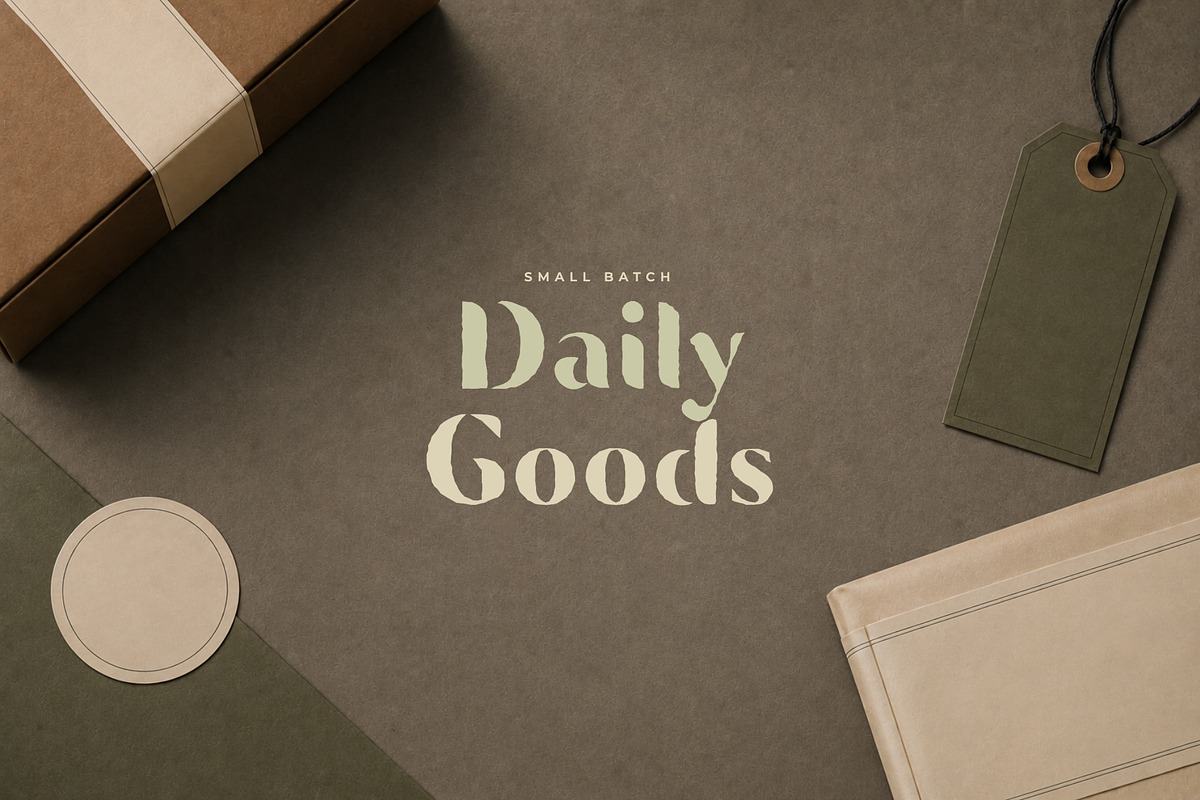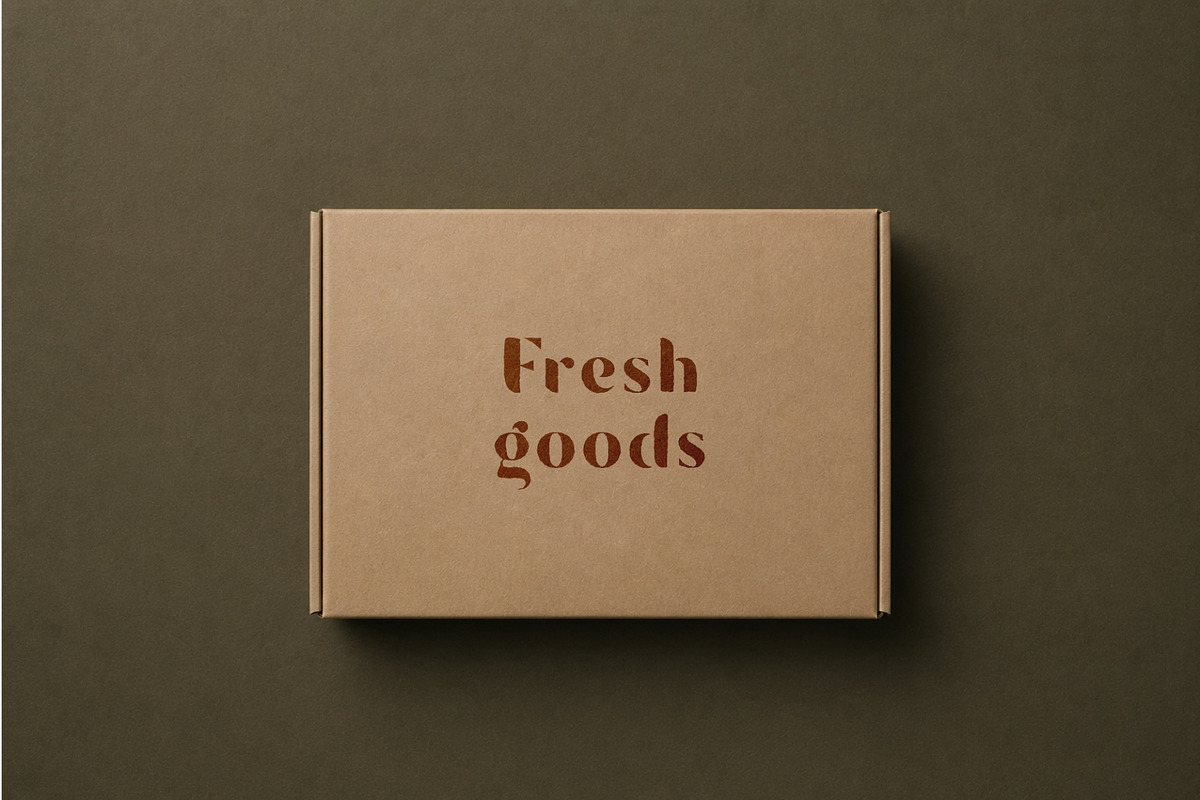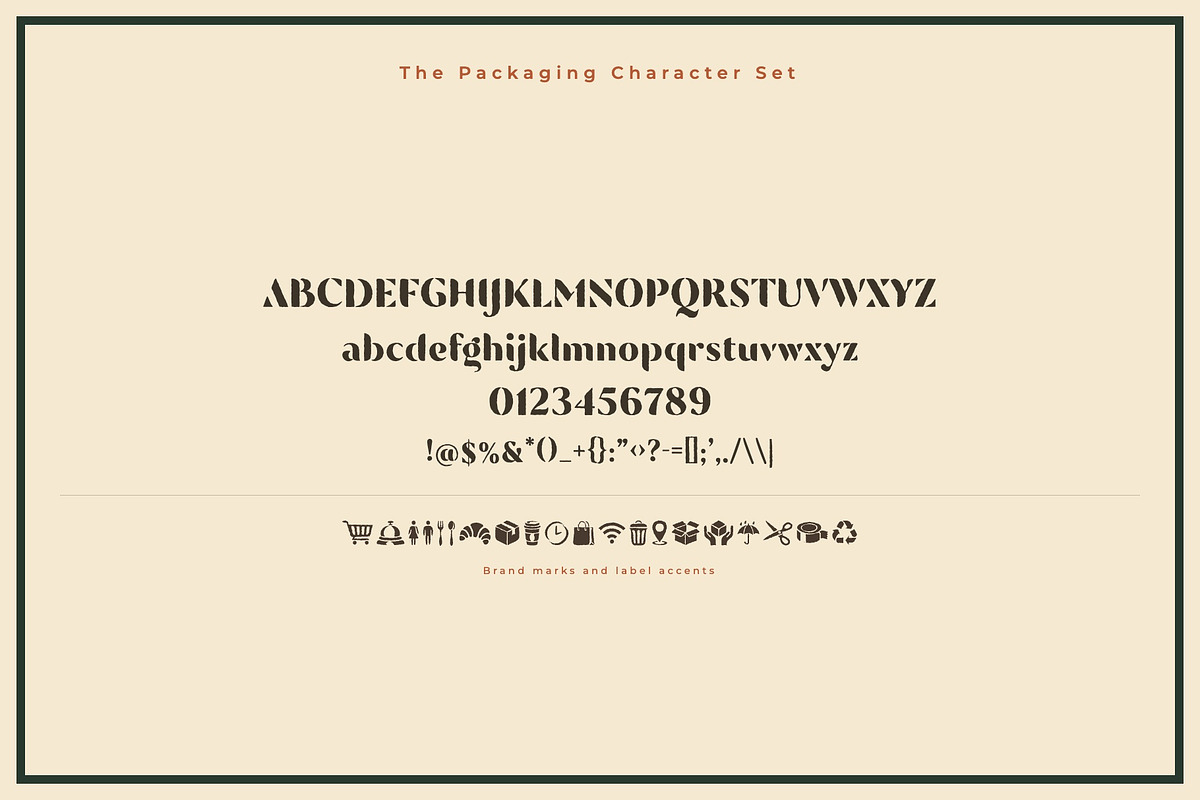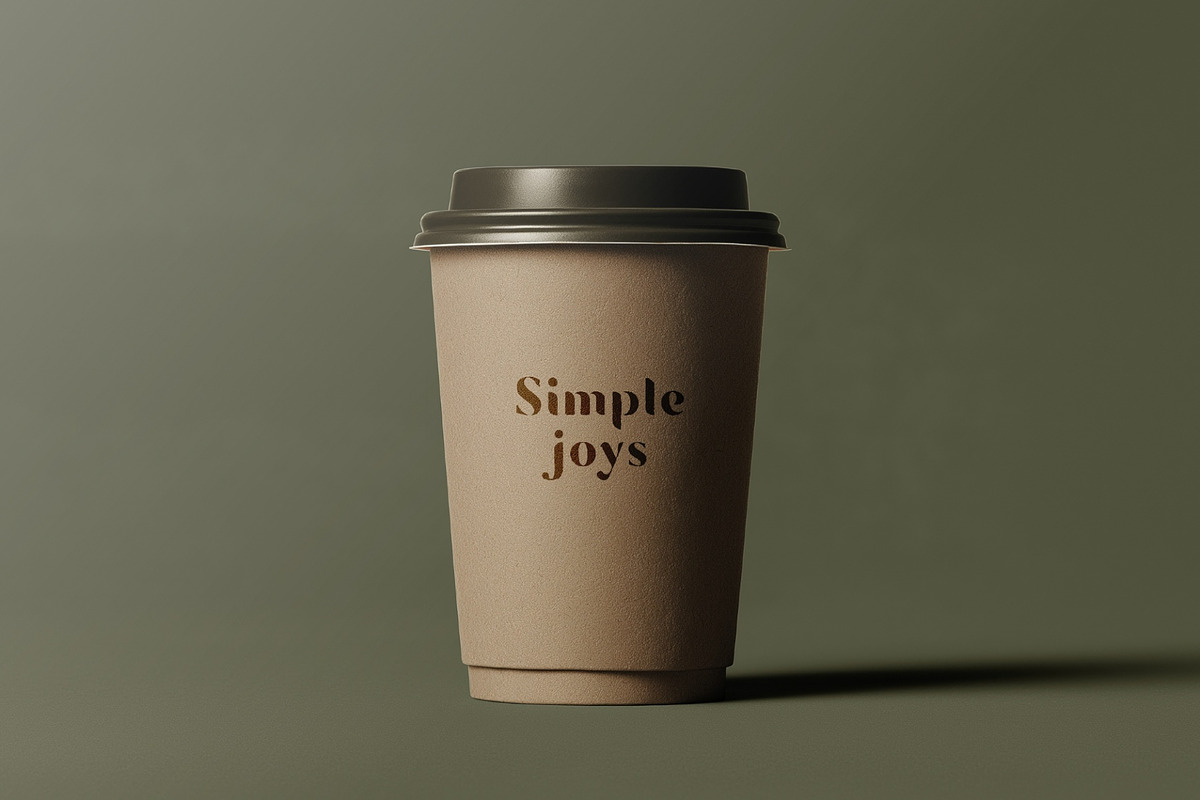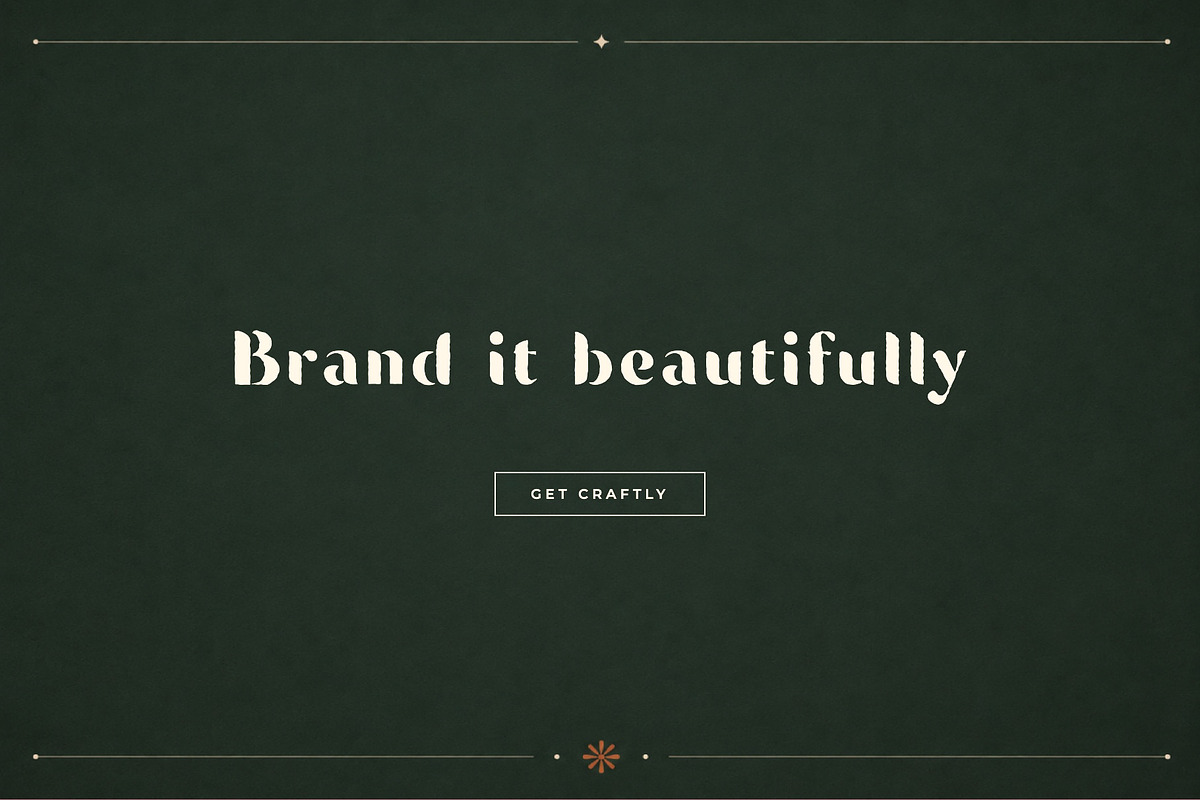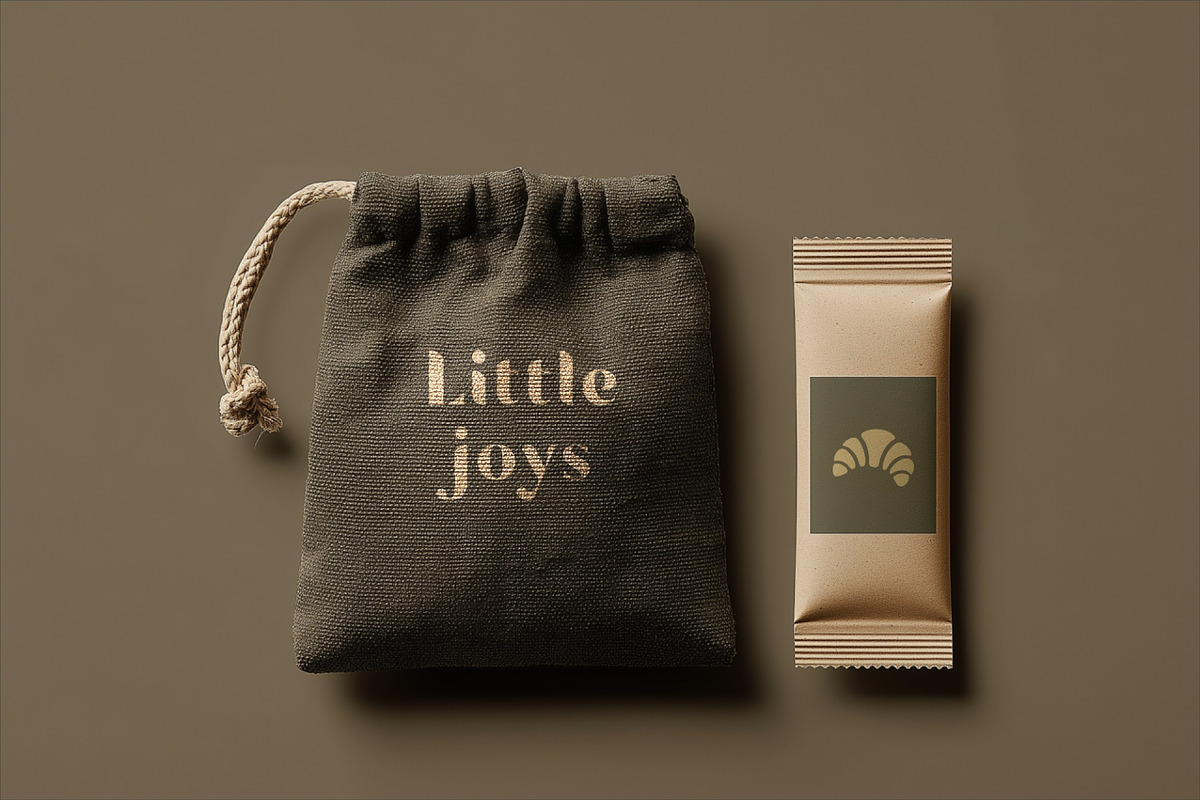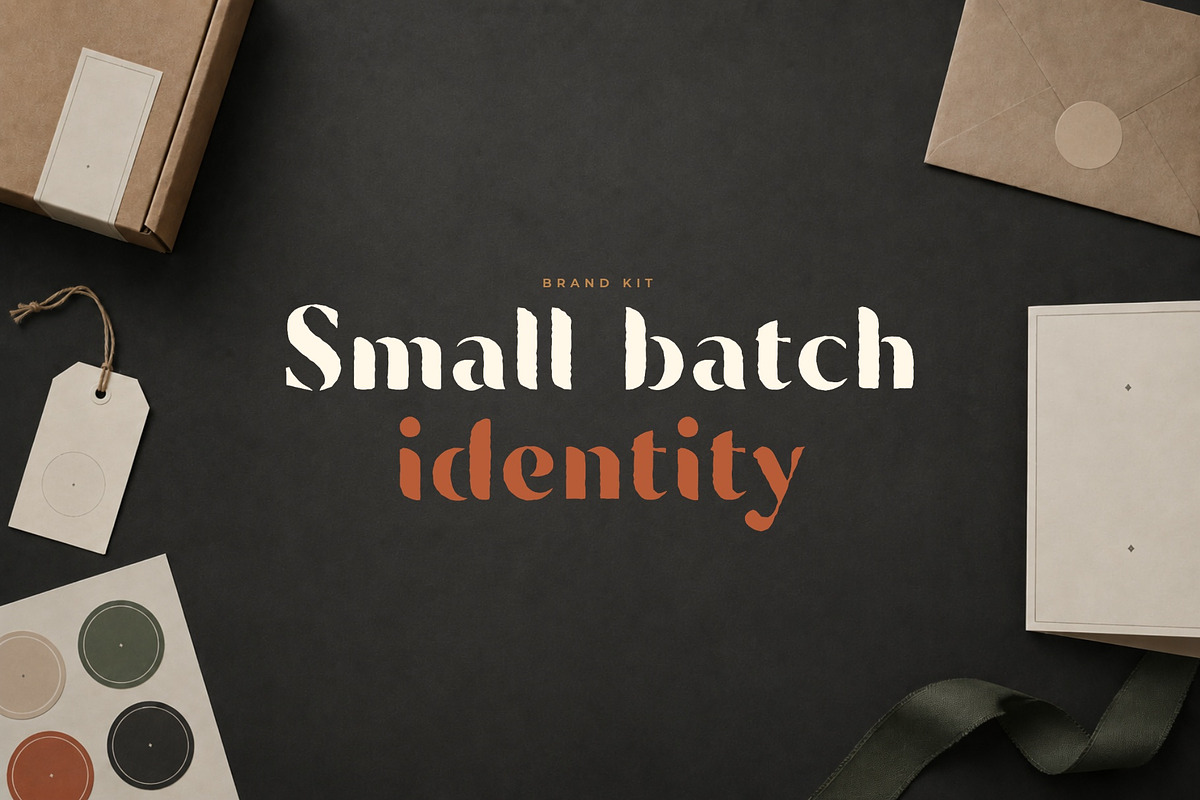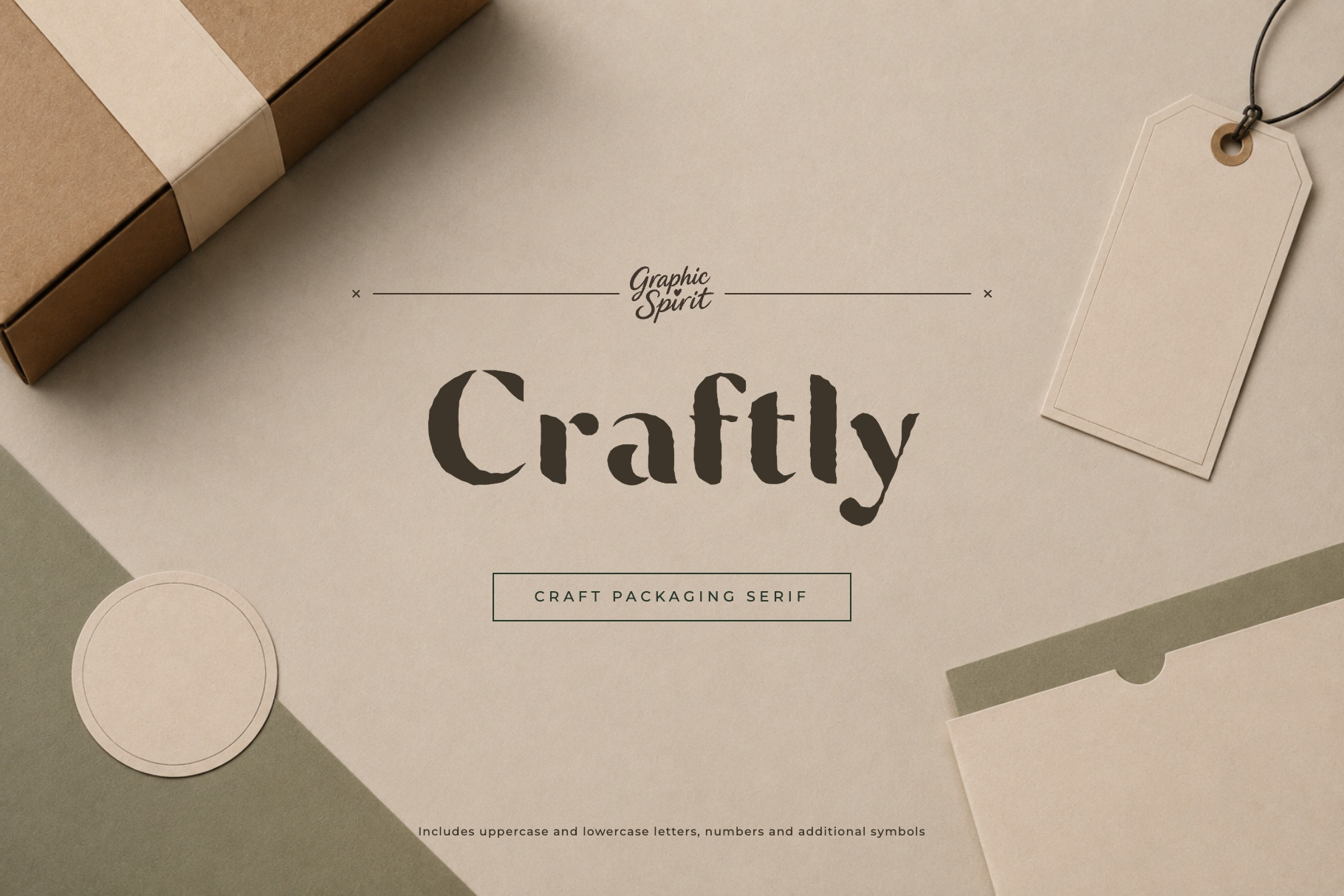
Craftly Font
✨ Craftly is a craft packaging serif font with kraft paper branding, small-batch packaging, and earthy artisanal confidence. It was created for designers, makers, and small brands who need expressive typography with a clear visual personality.
🎨 Craftly works beautifully for craft packaging, small batch branding, coffee cups, food labels, artisan goods, market products, brand kits, organic product design. The style is strong enough for headlines and product names, but still friendly enough for approachable branding, packaging, posters, labels, social graphics, and creative layouts.
💛 The typeface has a distinct display rhythm, so even short words feel designed and intentional. It is a useful choice when you want a project to feel crafted, memorable, and visually specific.
Best for:
- 📦 Craft packaging and small-batch labels
- ☕ Coffee cups and food branding
- 🏷️ Artisan goods and market products
- 🌿 Organic brand kits and product systems
- 🤎 Warm serif display typography
Includes uppercase and lowercase letters, numbers, punctuation, and additional symbols shown in the previews.